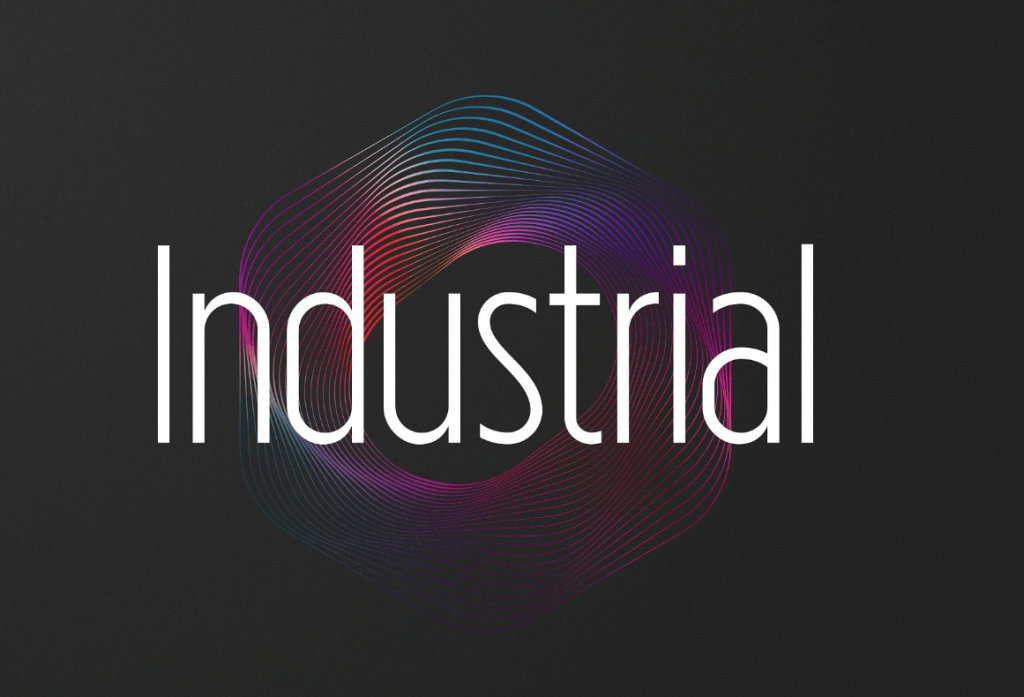
We all know that Industrial Sans Font Family is widely used fonts that looks likeĀ circular book all over the world. Therefore, Today we are going to introduce you to a great and amazing font.
Due to the highly specific readability and easy recognization, this gorgeous font will definitely work well for any kind of designs. Where it belongs to printing or displaying. Available serif for download.